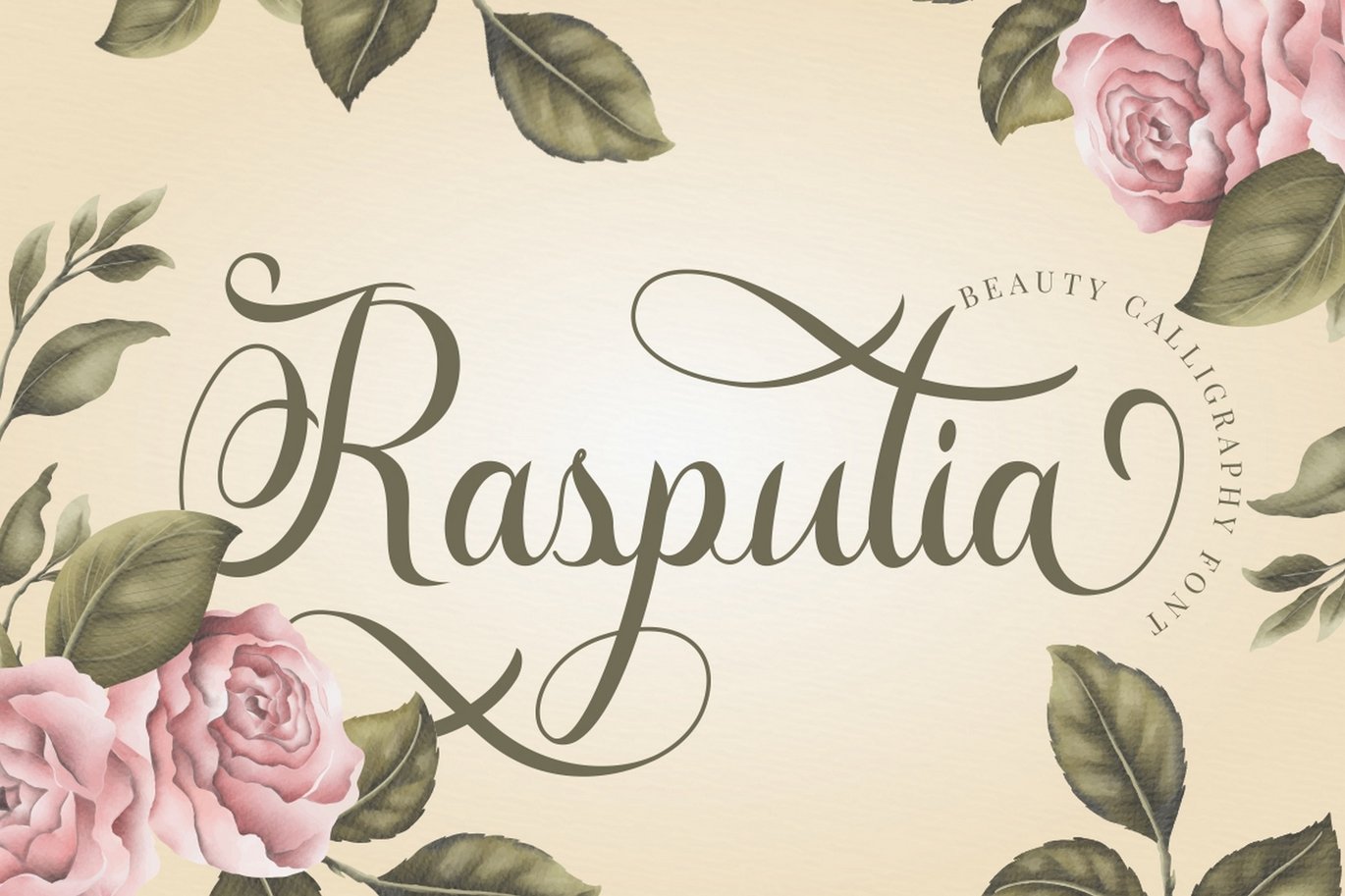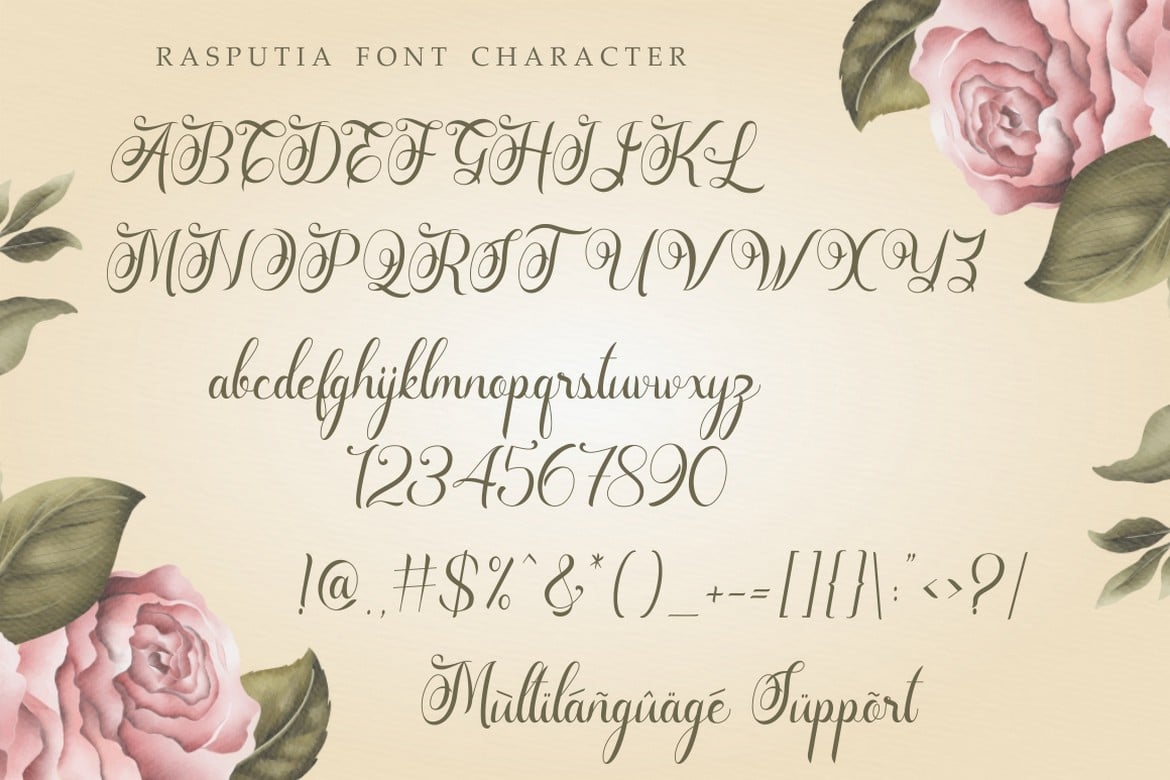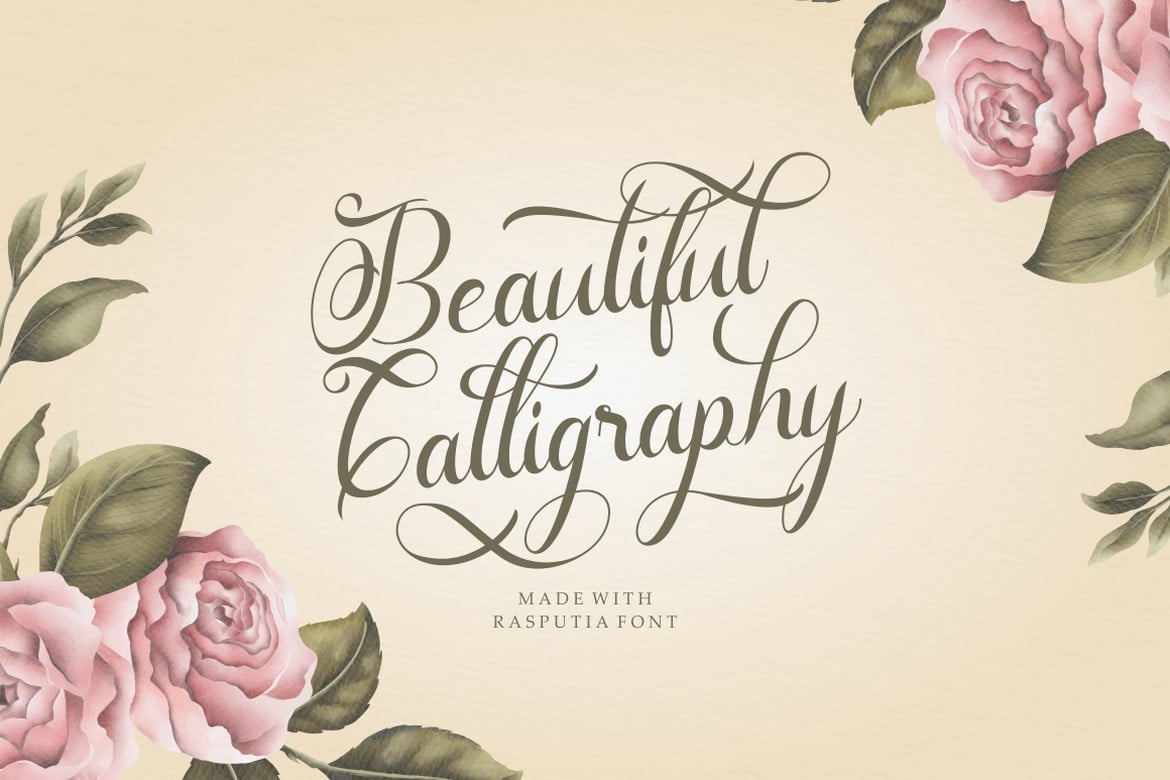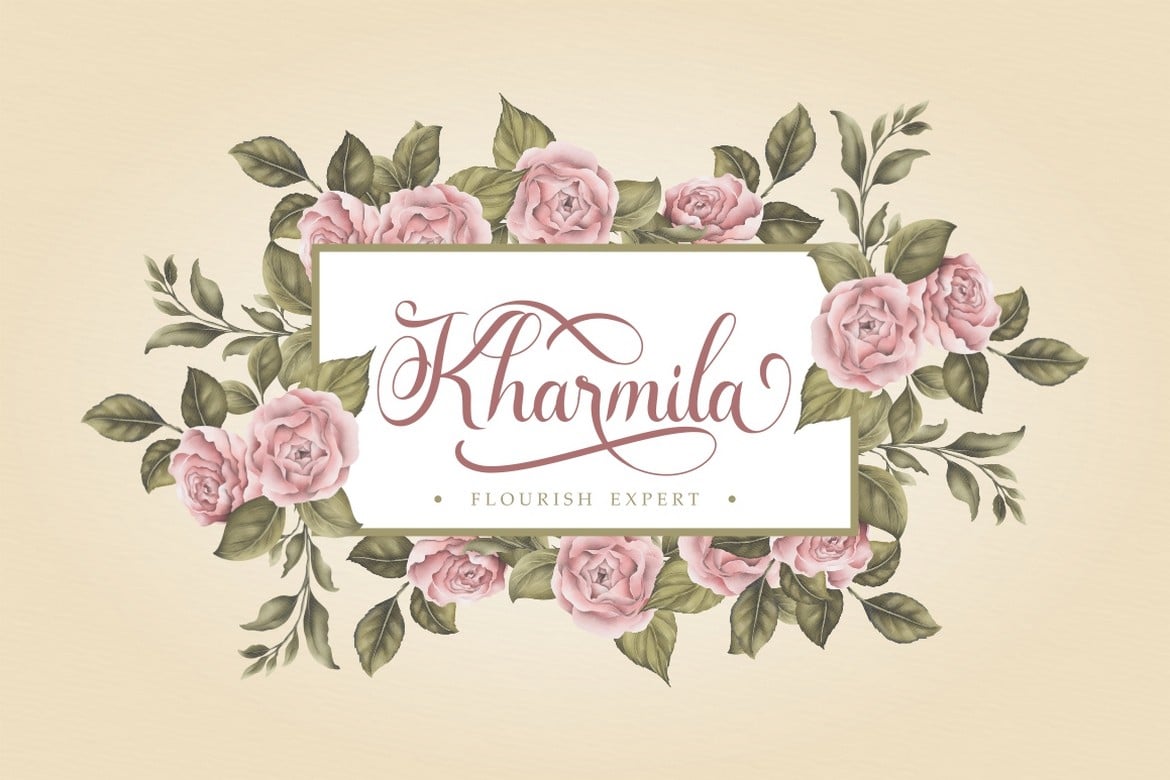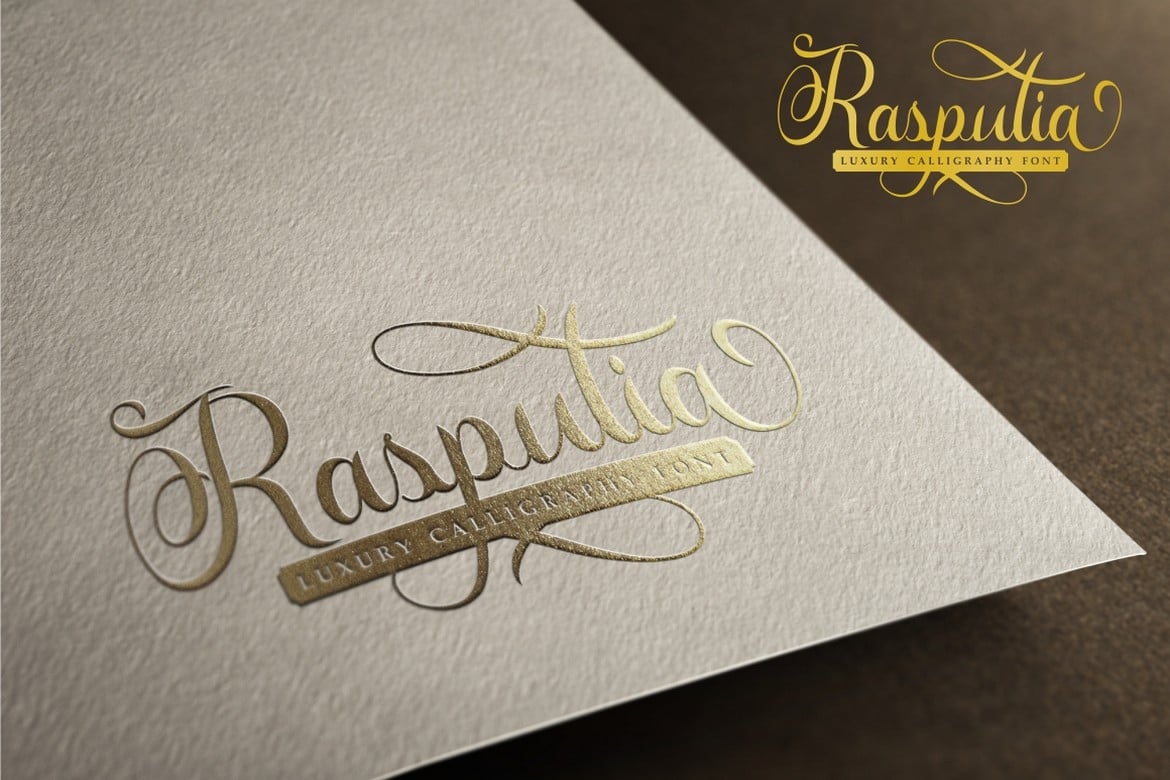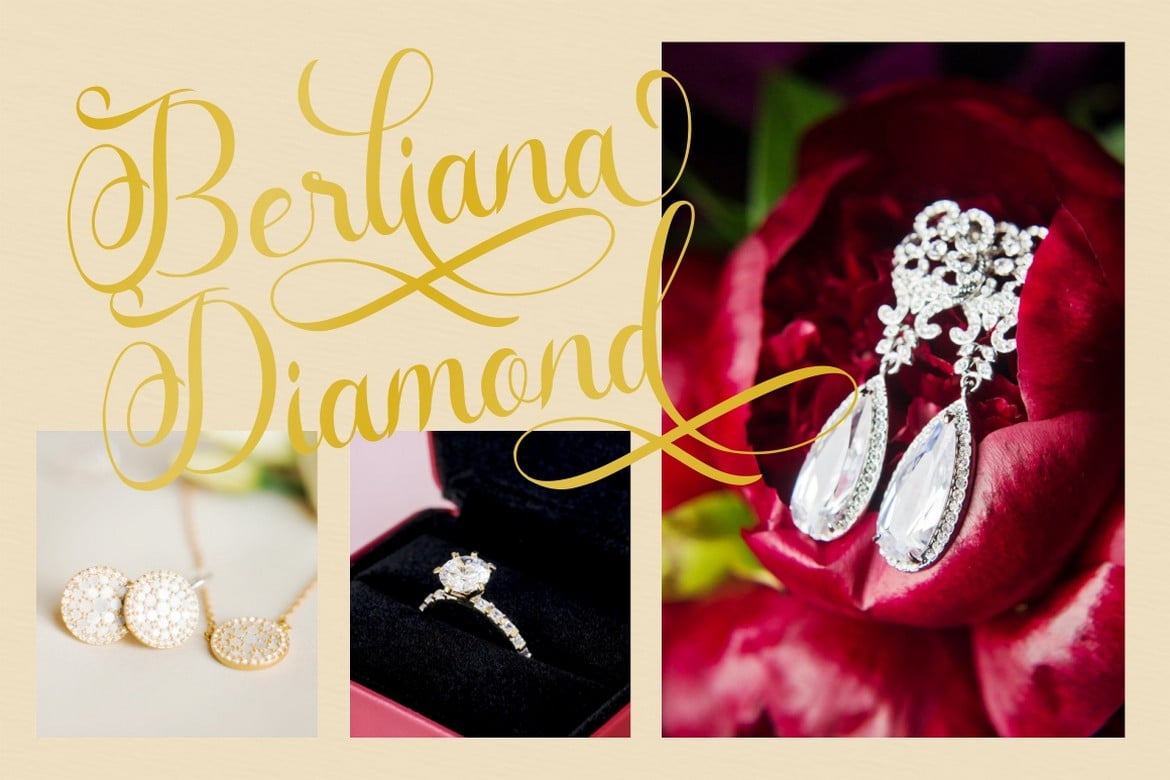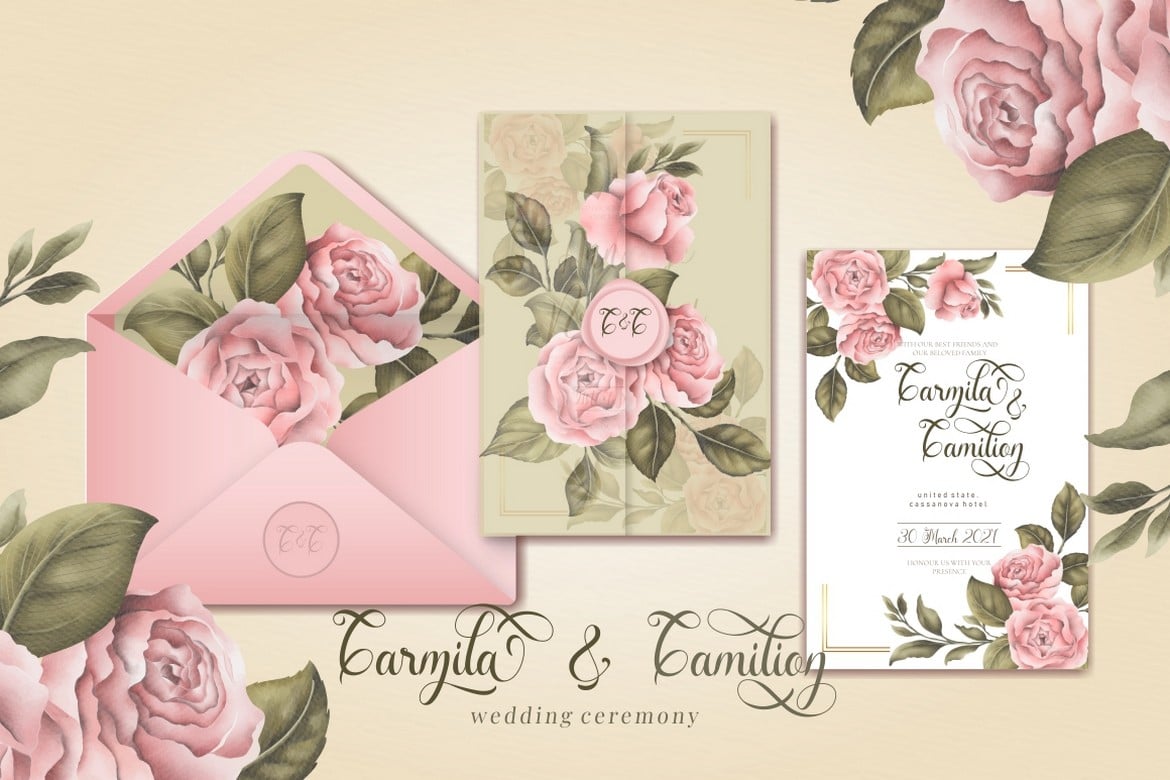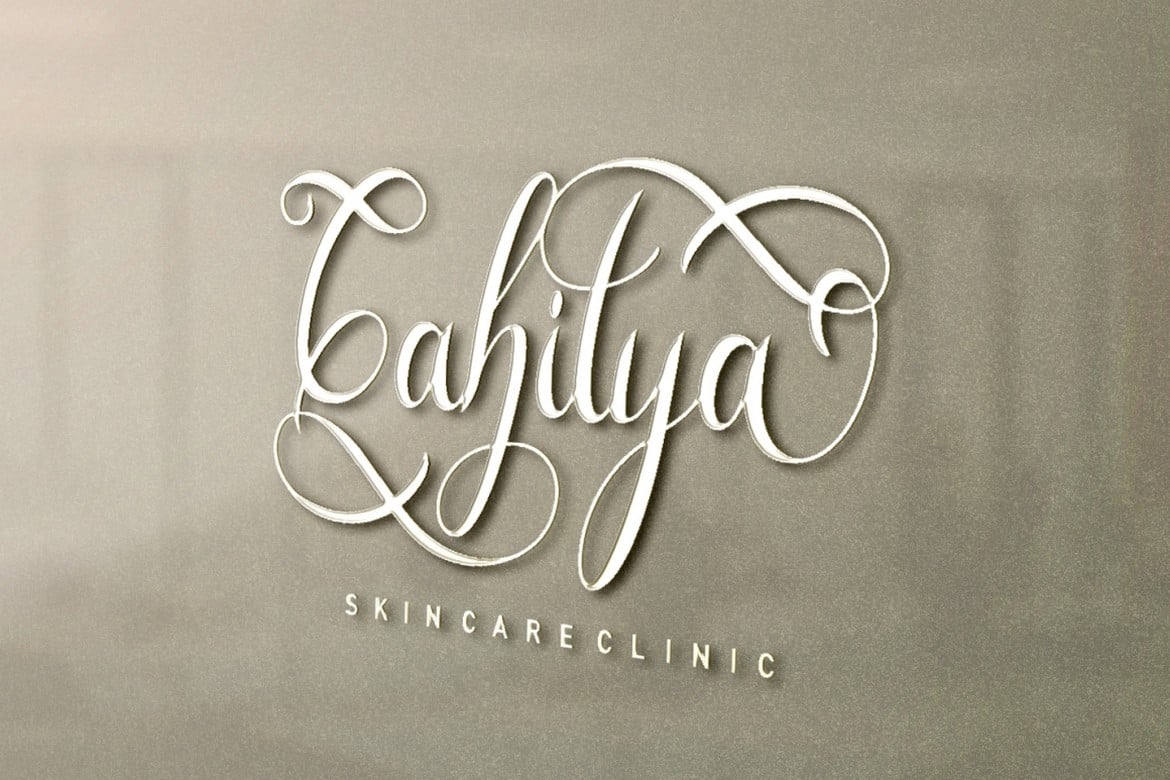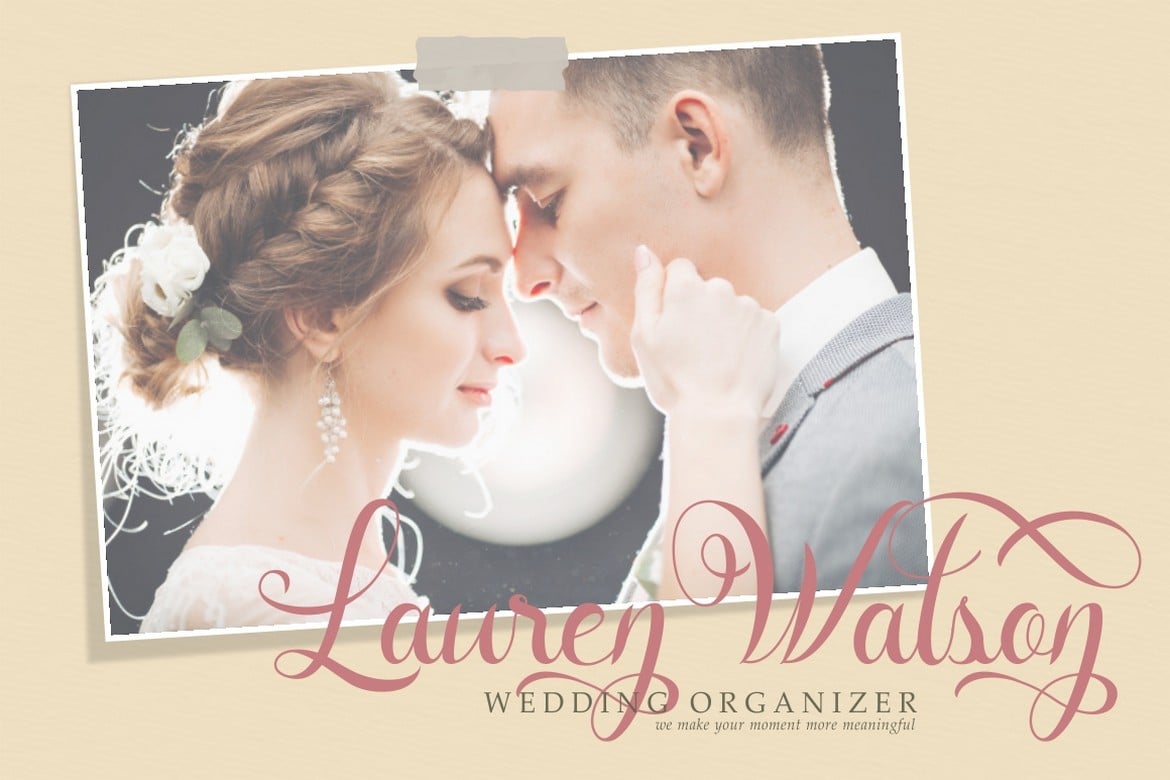
Rasputia – Beautiful Calligraphy Font
** Rasputia **
Rasputia is a luxury, elegant and beautiful calligraphy font. Full featured with tons of alternate characters and opentype features. This font designed to work together in harmony that makes it very suitable for wedding media, book covers, greeting cards, logos, branding, business cards and certificates, even for any design work that requires a elegant or luxurious style.
Come with Opentype feature with a lot of alternates, its help you to make great lettering. This font is also support multi language.
** Comes with feature : **
- Number, Punctuation And Symbols
- Multilanguage Support.